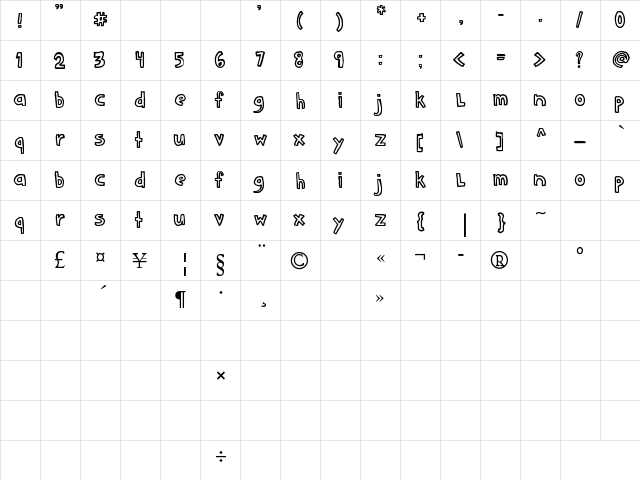
DENNE | schooLgirL Regular
Design Context for DENNE | schooLgirL Typeface
DENNE | schooLgirL is a composed and adaptable typeface that performs quietly and consistently across a wide range of design contexts.